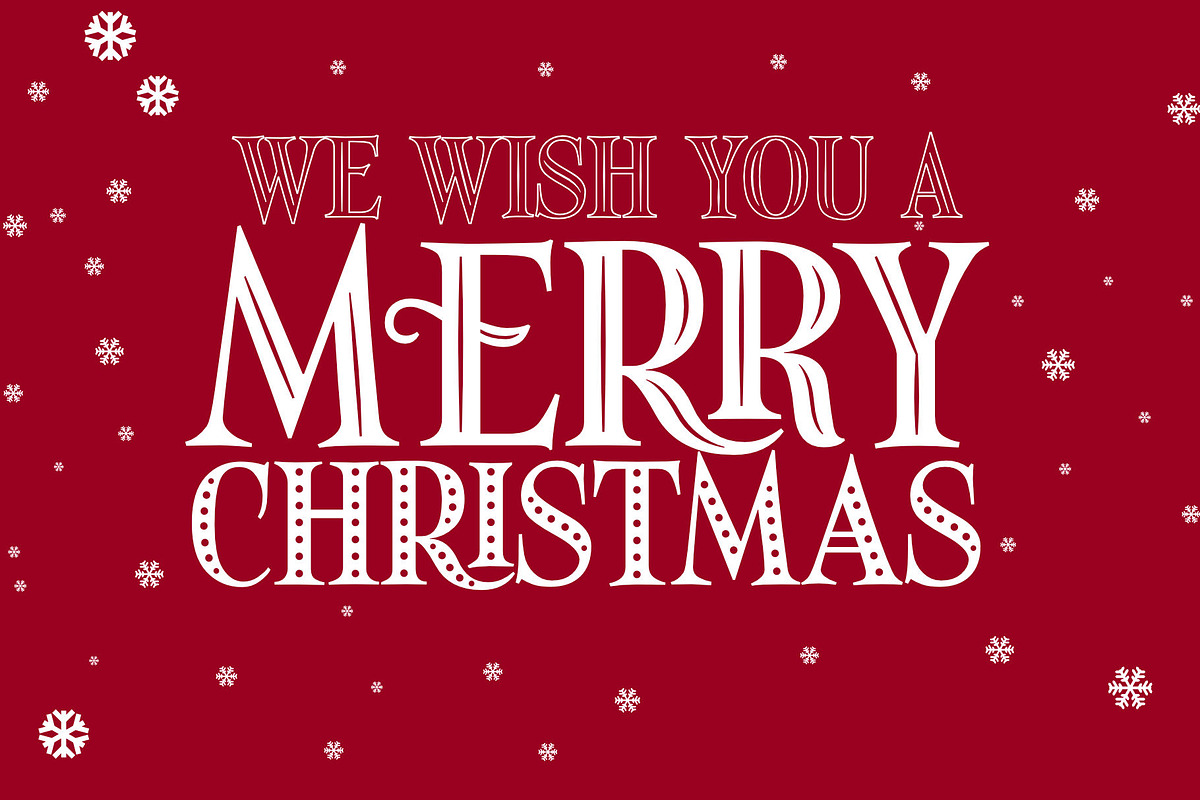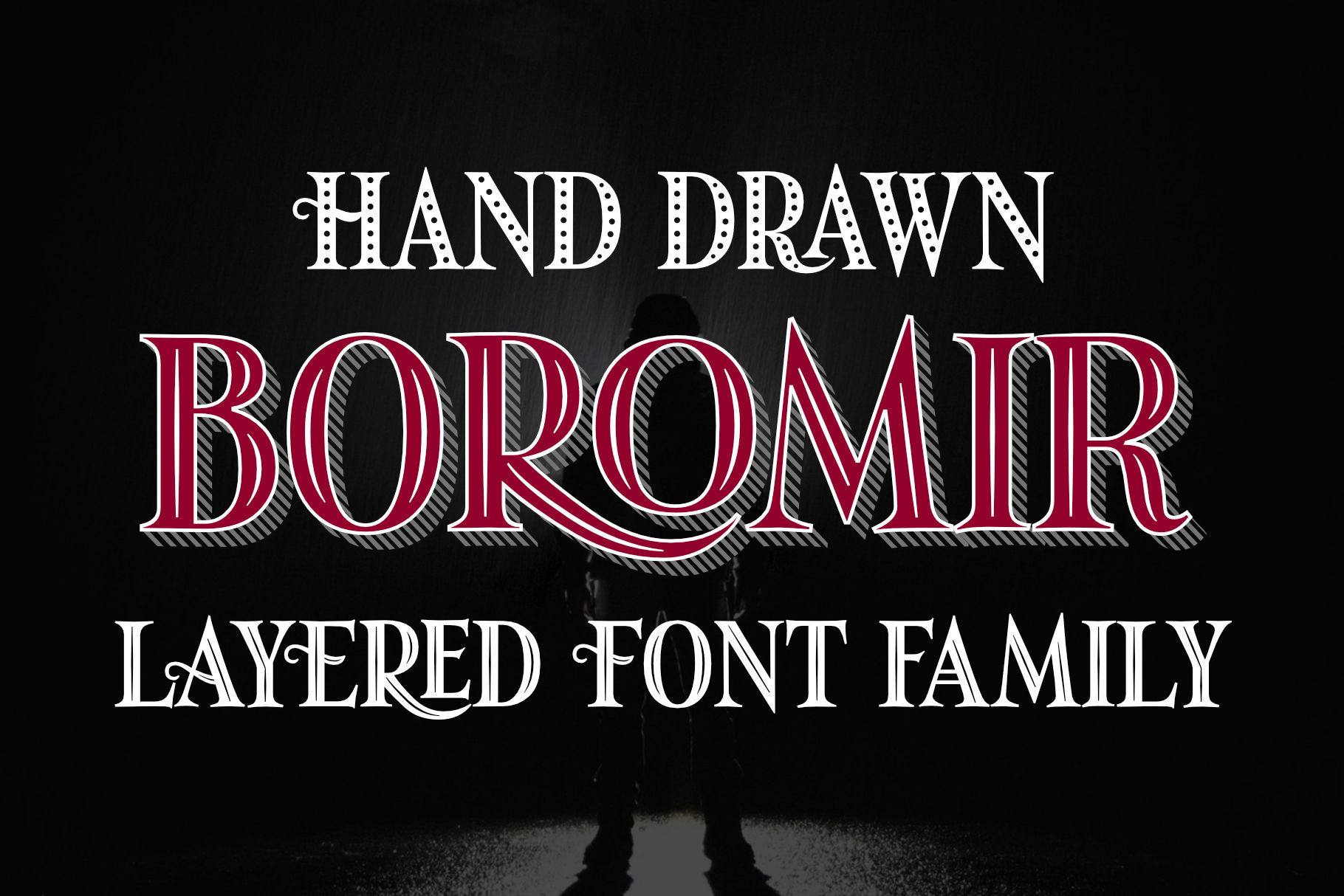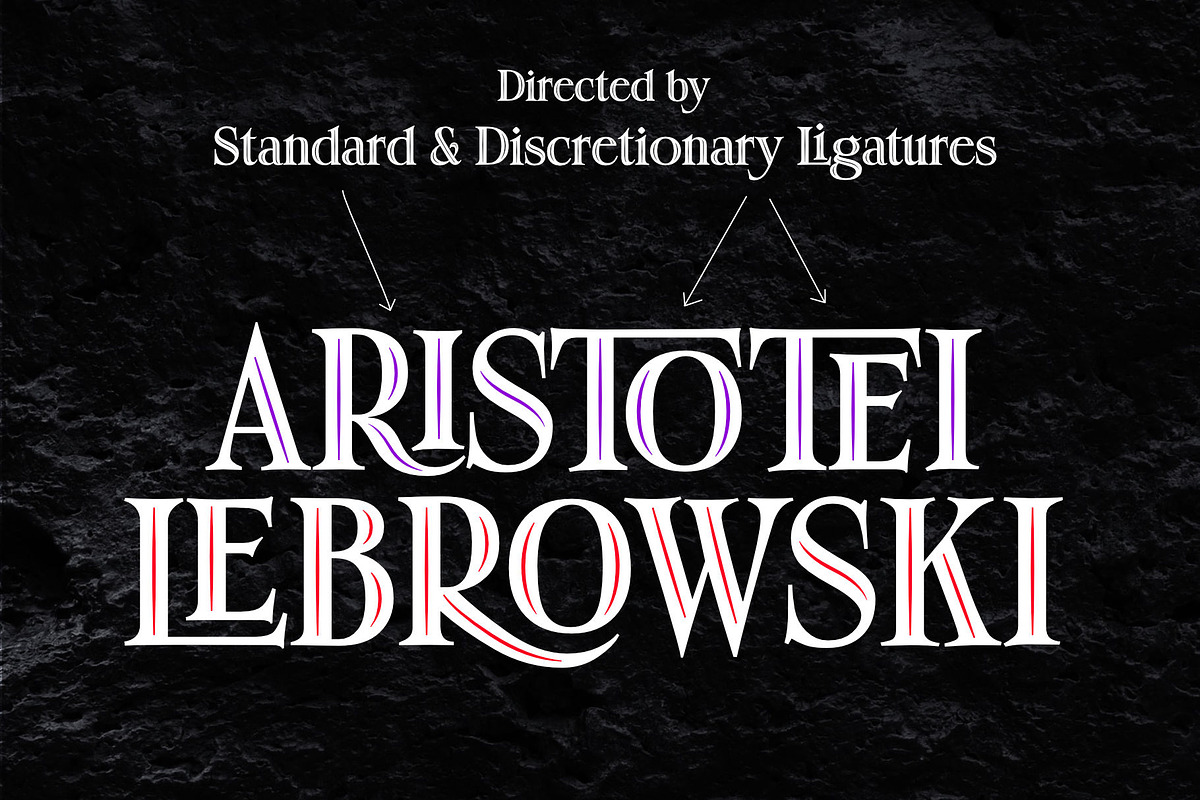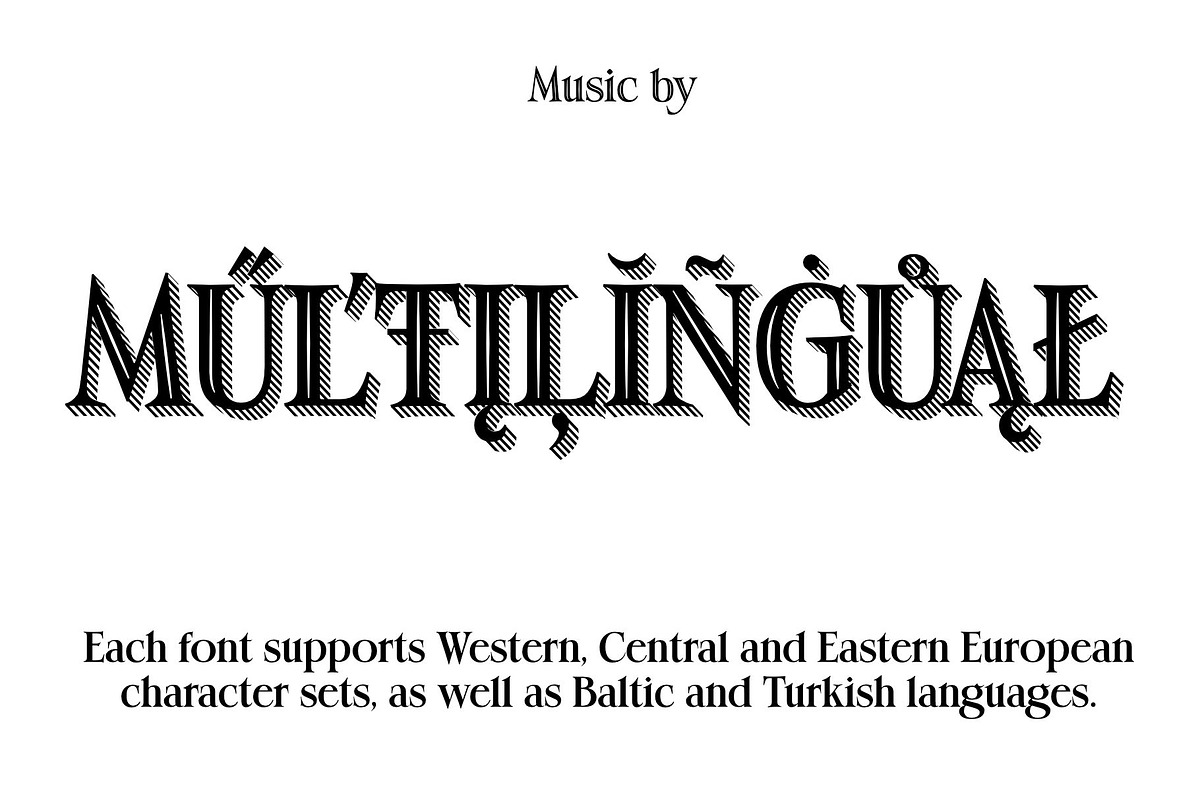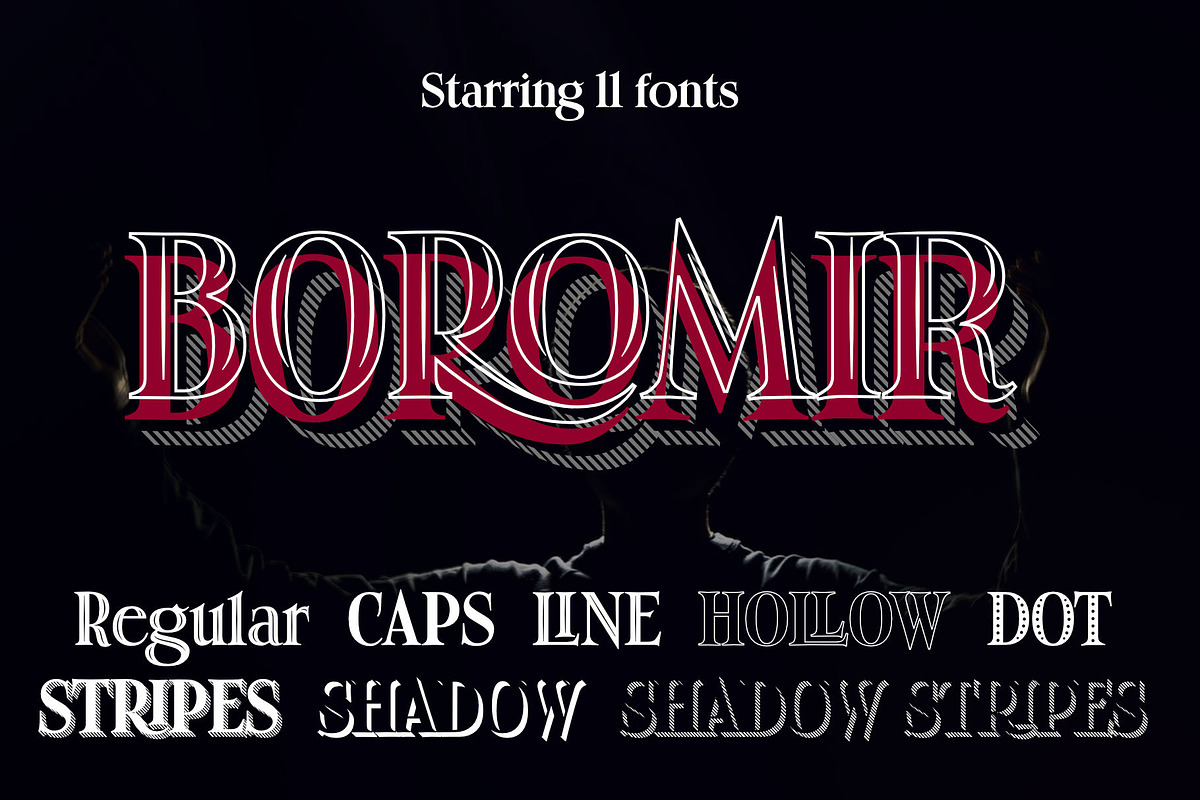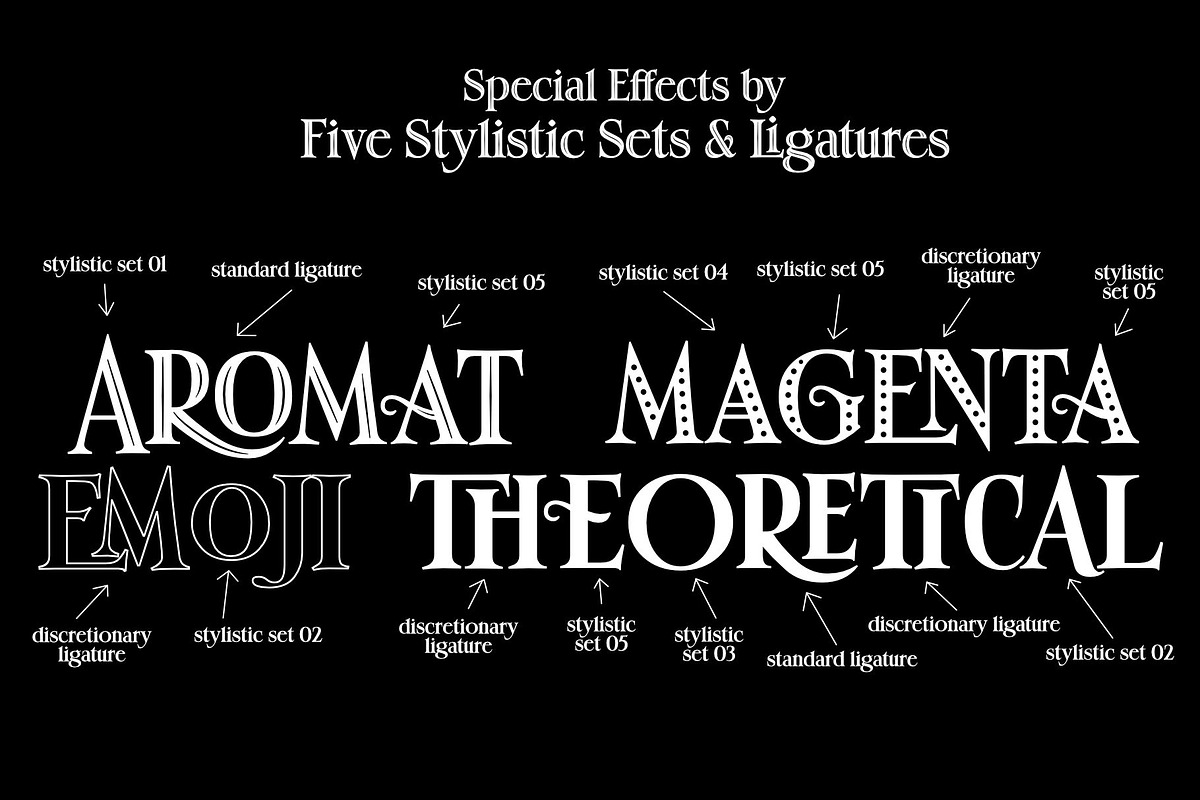
Boromir - 11 layered fonts
Boromir is a hand-drawn, serif, layered, vintage font family. Each font features over 440 Glyphs, 5 Stylistic Sets, Standard and Discretionary Ligatures.
The flow and vintage style works perfectly on invitations, blog headers, branding, art quote, posters, book cover and so much more!
Language support includes Western, Central and Eastern European character sets, as well as Baltic and Turkish languages.